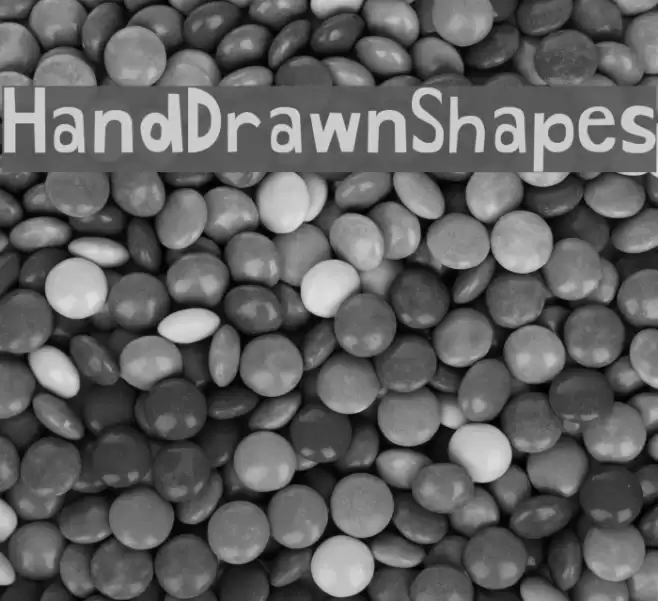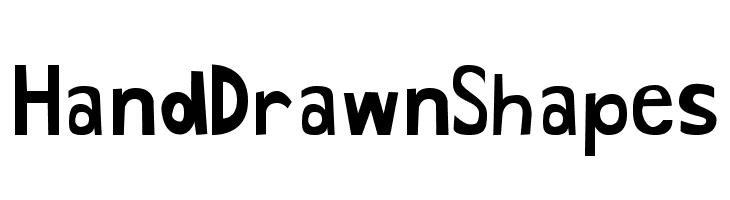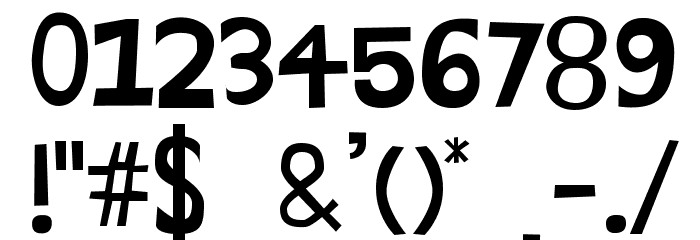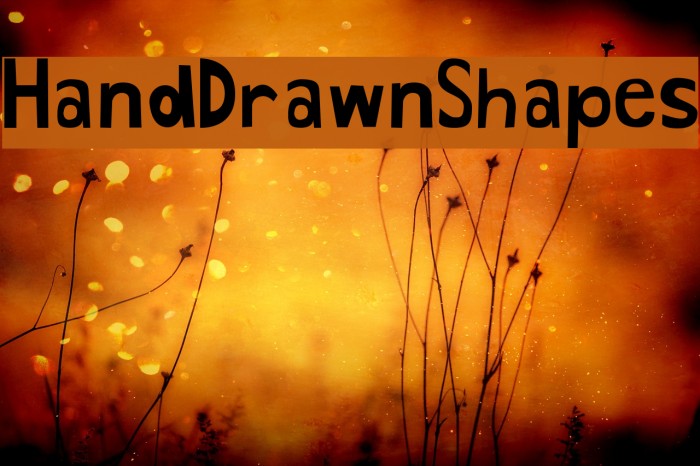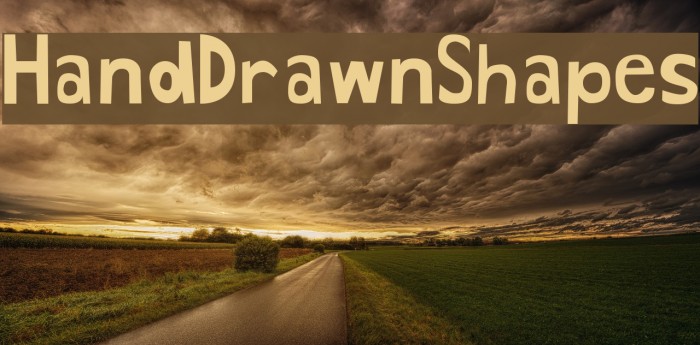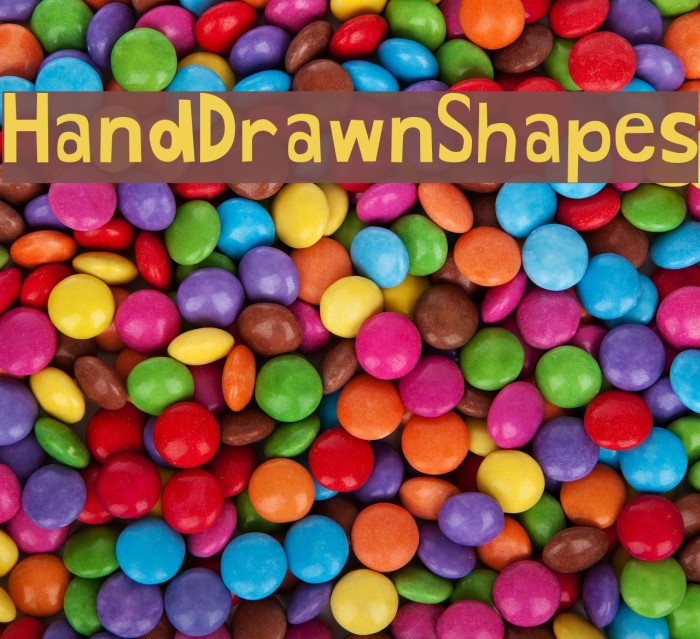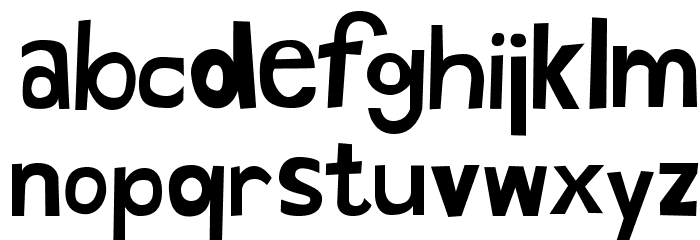
HandDrawnShapes Font
HandDrawnShapes Description
This font features a playful and whimsical design, characterized by its hand-drawn appearance. The letters have a slightly irregular shape, giving them a casual and friendly feel. The uppercase and lowercase letters maintain a consistent style, with bold strokes and varying line thickness that add to the font's charm. The numbers and special characters follow the same playful aesthetic, making this font suitable for creative and informal projects. Its unique style is perfect for adding a personal touch to any design.
A playful, hand-drawn font with a whimsical and casual style from Cartoon fonts.